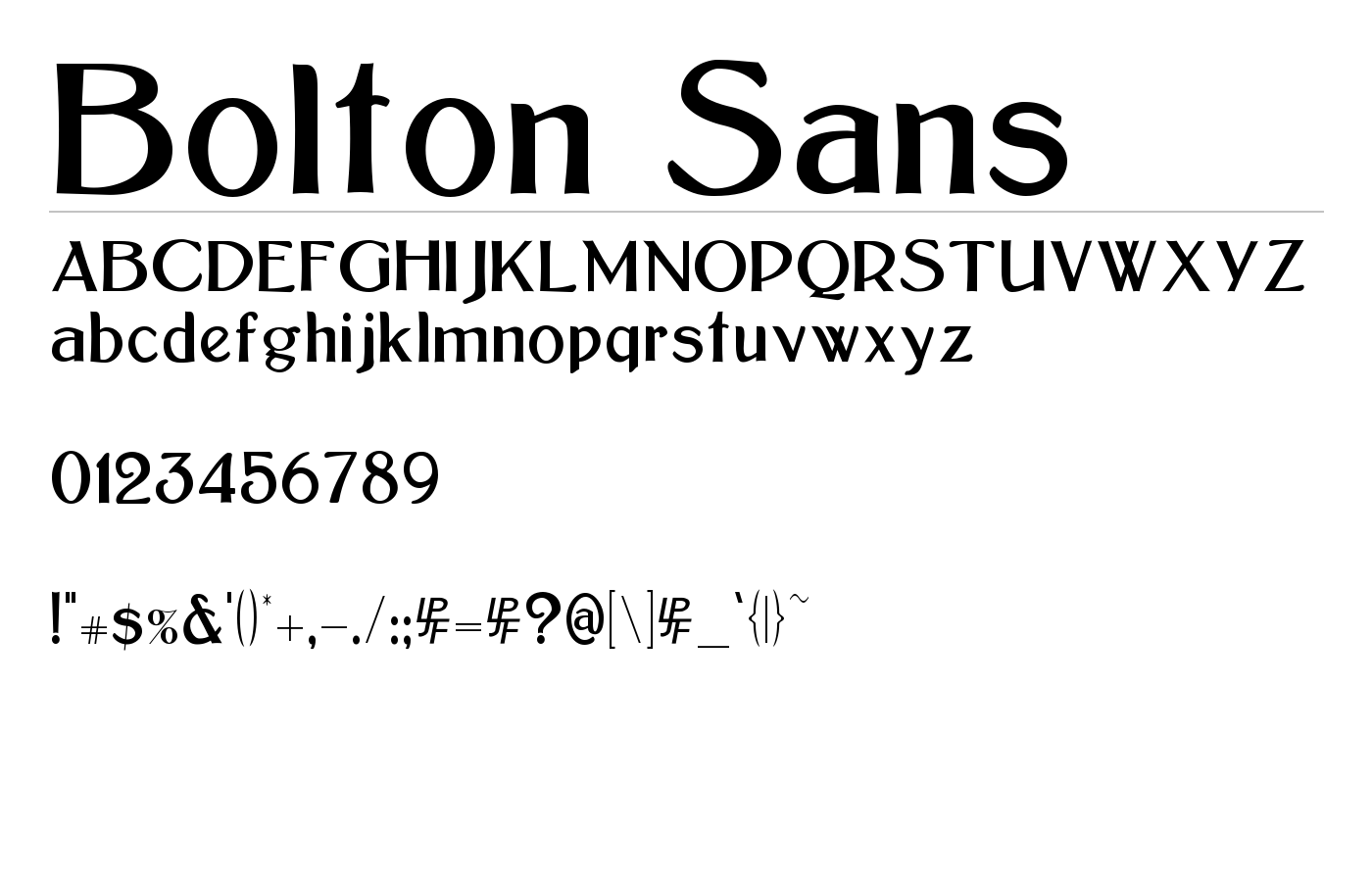
Bolton Sans is a distinctive serif typeface that blends classical elegance with a playful twist through its uneven stroke weights and quirky letter shapes. Featuring moderate contrast, single-story forms, and subtle calligraphic touches, it brings a friendly yet refined personality ideal for editorial headlines, logos, and creative branding where uniqueness and readability matter. This font works best in projects seeking a blend of vintage charm and modern versatility.
Bolton Sans Font
About Bolton Sans Font